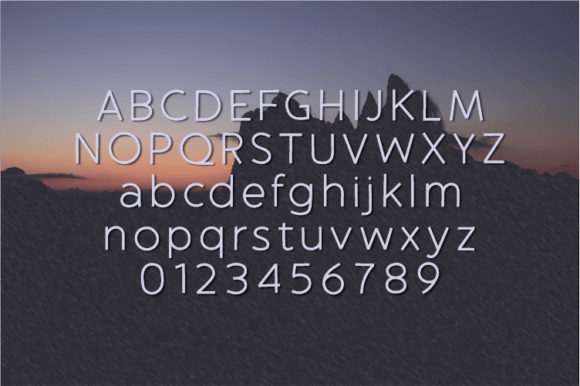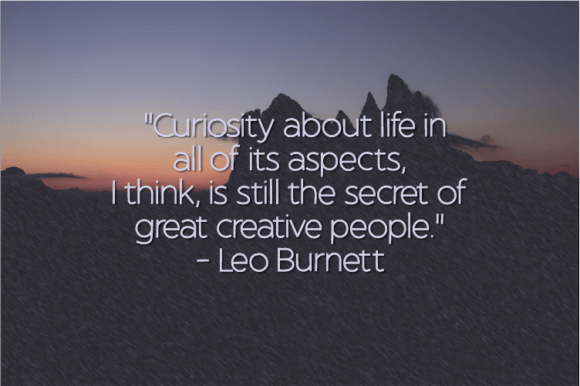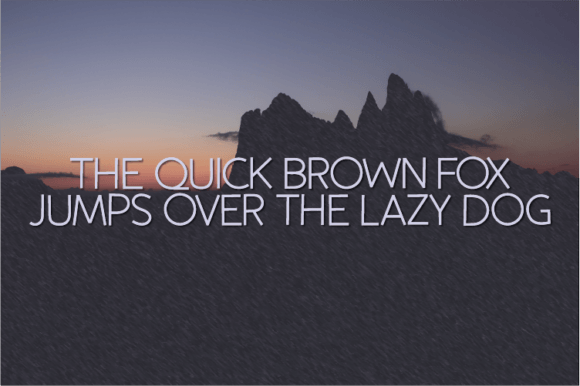
Catherine Font: The Unique Sans Serif for Creative Designs
In the world of typography, a new font has emerged that’s making waves among designers and crafters alike. Say hello to Catherine Font, a natural sans serif font that’s been crafted with precision and creativity. What sets Catherine apart is its unique approach to character design, where not a single node in each character’s indentation has been altered. This distinctive feature makes Catherine a standout in the realm of typography, perfect for a variety of design applications.
The Story Behind Catherine Font
Catherine Font is a result of meticulous design and attention to detail. The creator’s goal was to produce a font that exudes a natural, effortless feel while maintaining a high level of legibility. By refraining from adjusting a single node in each character’s indentation, the designer has achieved a truly unique look that’s both refreshing and captivating. This approach allows the font to convey a sense of authenticity and honesty, making it an excellent choice for designers seeking to add a personal touch to their work.
Key Features of Catherine Font
• Natural Sans Serif: Catherine Font boasts a clean and minimalist sans serif design that lends itself well to a wide range of applications.
• Unique Character Indentation: The font’s distinctive feature is its unaltered character indentation, setting it apart from other sans serif fonts.
• High Legibility: Despite its unique design, Catherine Font remains highly legible, making it suitable for body text and headlines.
• Versatile: This font can be used for various design projects, including quotes, notes, tees, and product design.
Catherine Font is an excellent addition to any designer’s toolkit. Its versatility and unique design make it an ideal choice for a variety of projects, such as:
• Quotes and Inspirational Texts: The font’s natural, effortless feel makes it perfect for displaying quotes and inspirational texts.
• Notes and Journals: Catherine Font’s legibility and clean design make it suitable for use in notes and journals.
• T-Shirts and Apparel: The font’s unique design and high legibility ensure that it will stand out on t-shirts and other apparel.
• Product Design: Catherine Font can be used to add a personal touch to product designs, such as packaging, labels, and branding materials.
Tips for Using Catherine Font
• Experiment with Font Sizes: Catherine Font looks great in various font sizes, from large headings to smaller body text.
• Play with Color: The font’s unique design lends itself well to creative color schemes and combinations.
• Mix and Match: Don’t be afraid to combine Catherine Font with other fonts to create visually interesting designs.
Catherine Font is a game-changer in the world of typography. Its unique design, high legibility, and versatility make it an excellent choice for designers and crafters seeking to add a personal touch to their work. Whether you’re designing quotes, notes, tees, or product designs, Catherine Font is sure to impress. So why not give it a try and see how this amazing font can elevate your designs?